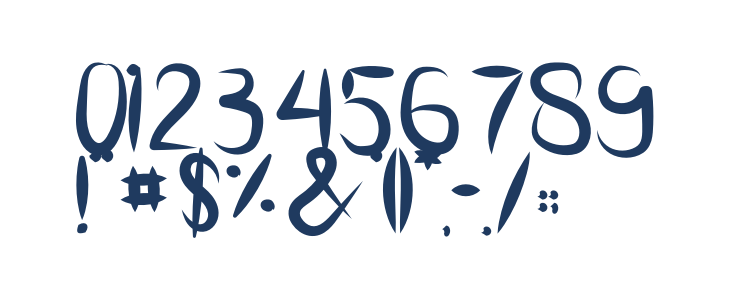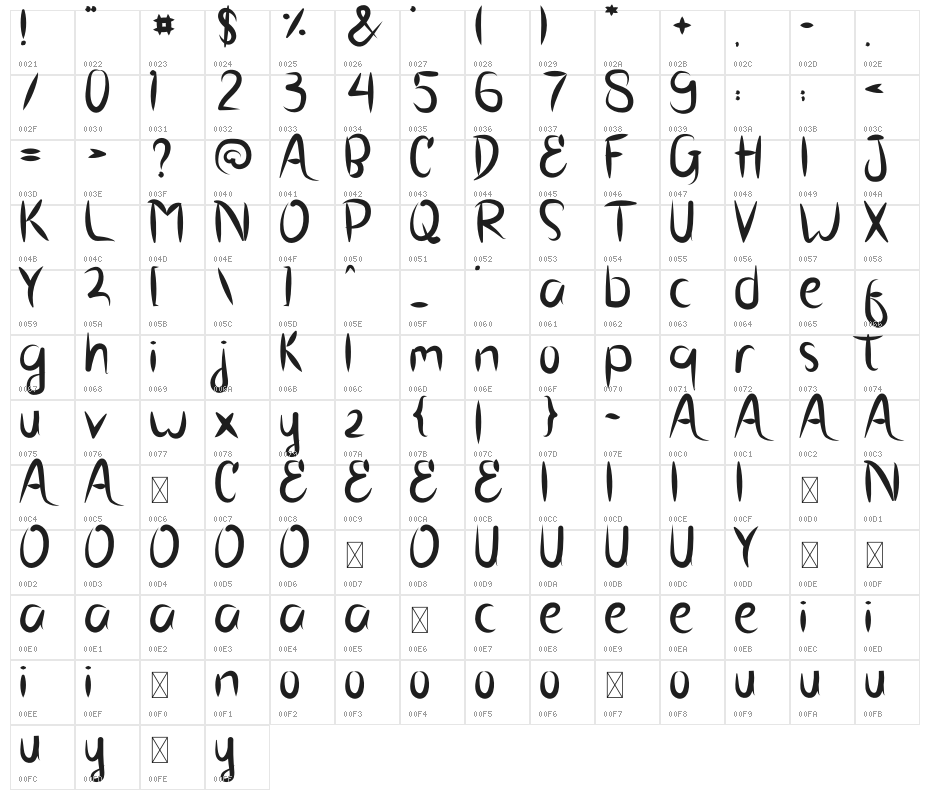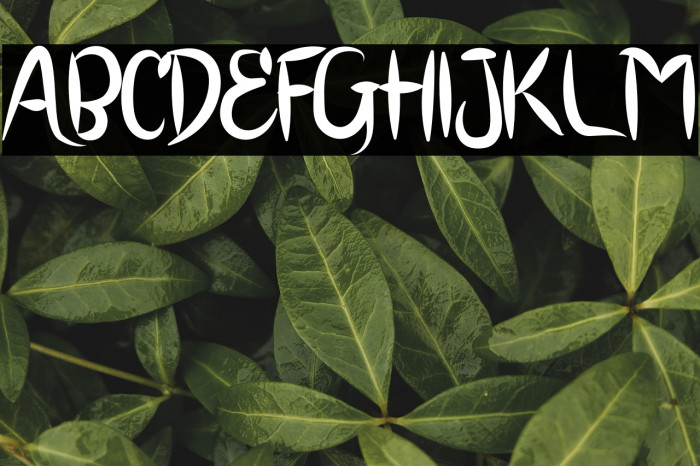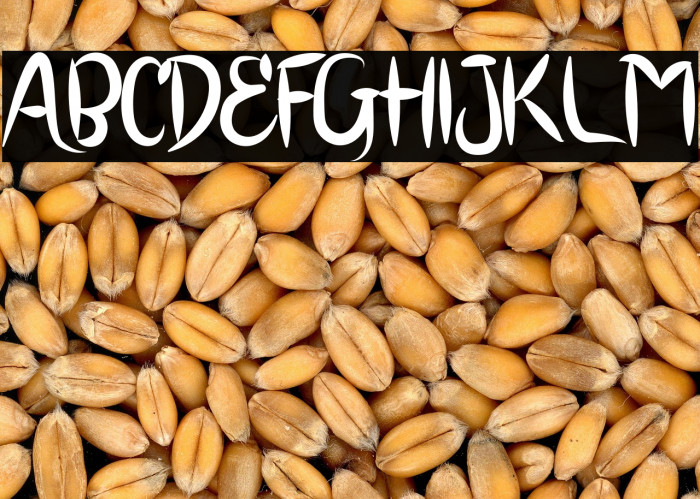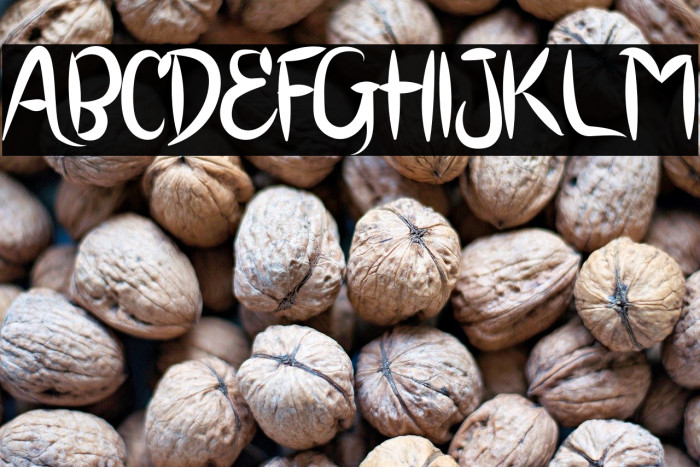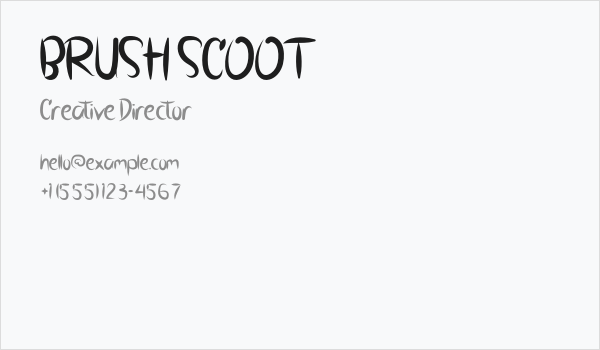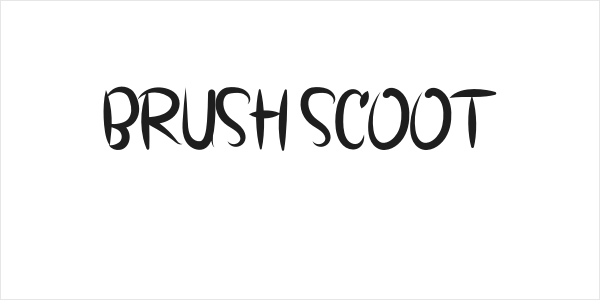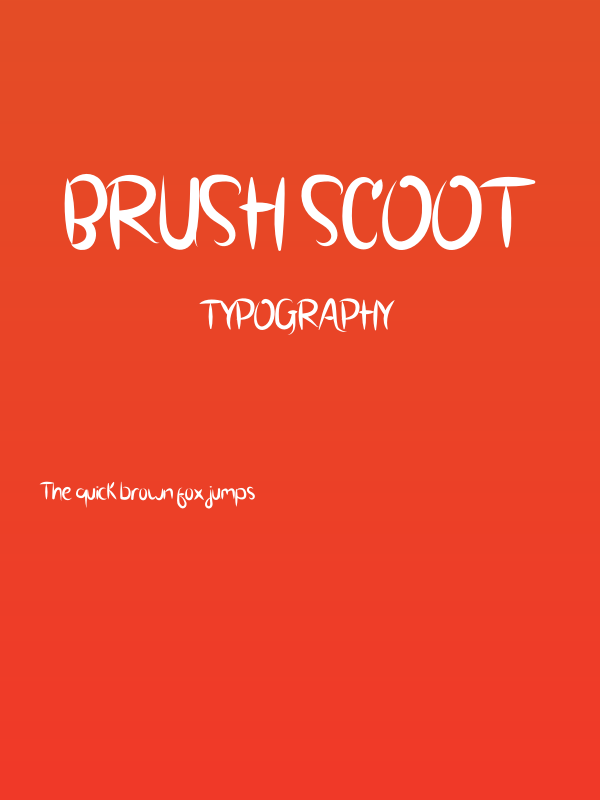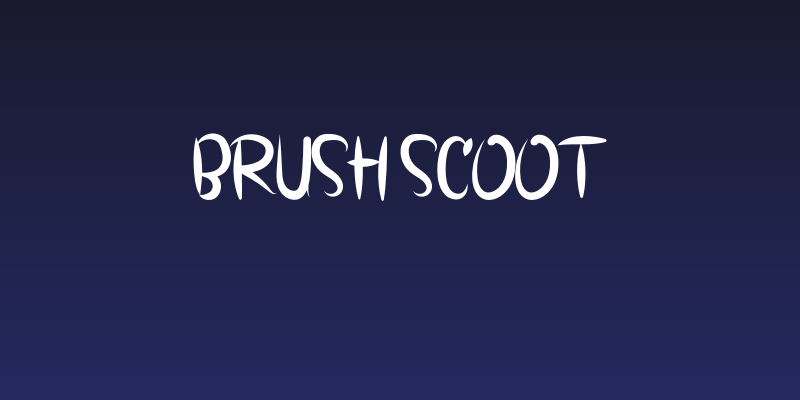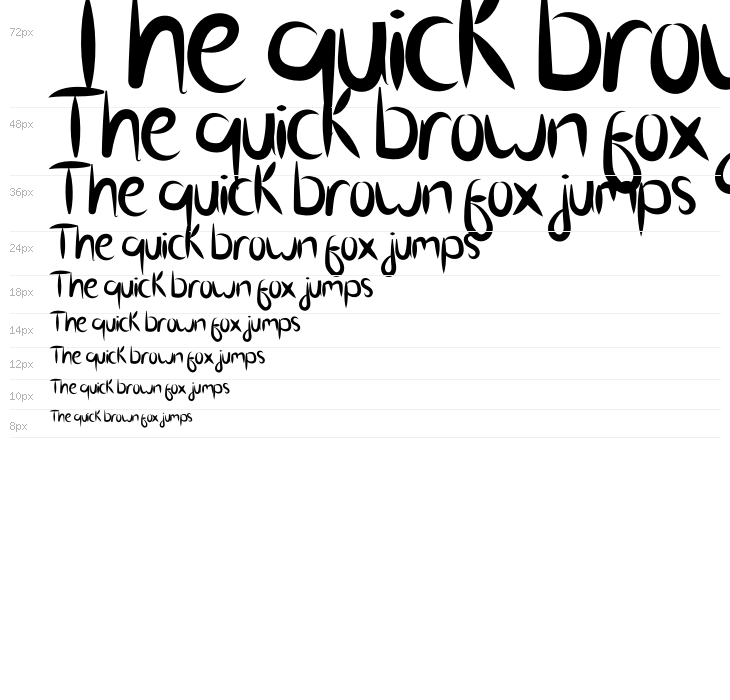
BRUSH SCOOT Font
BRUSH SCOOT Description
This font features a dynamic and expressive style, reminiscent of brush strokes with a lively and energetic flair. The characters are bold and slightly slanted, giving a sense of movement and fluidity. The uppercase letters are tall and commanding, while the lowercase letters maintain a consistent flow, enhancing readability. Numbers and special characters are crafted with the same artistic touch, ensuring a cohesive look across all elements. The overall appearance is both artistic and modern, making it suitable for creative and eye-catching designs.
| Proposed Projects | Ideal for branding, posters, artistic projects, and any design requiring a bold, creative touch. |